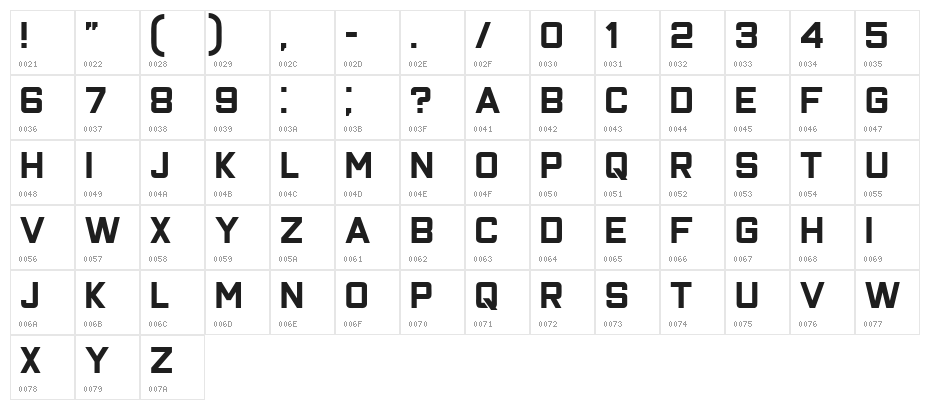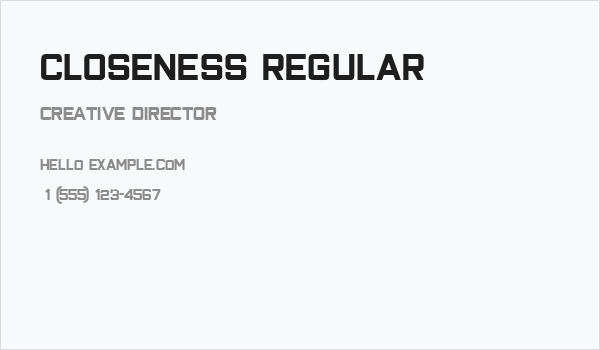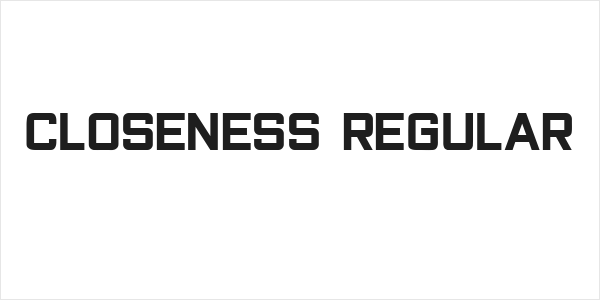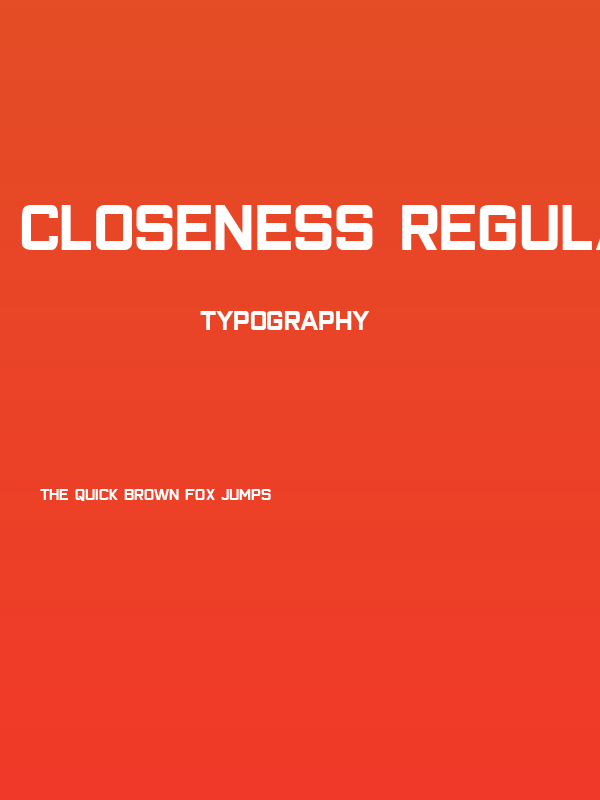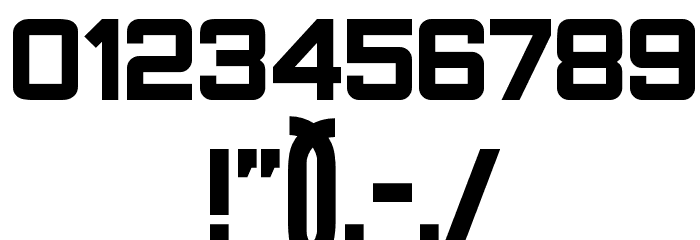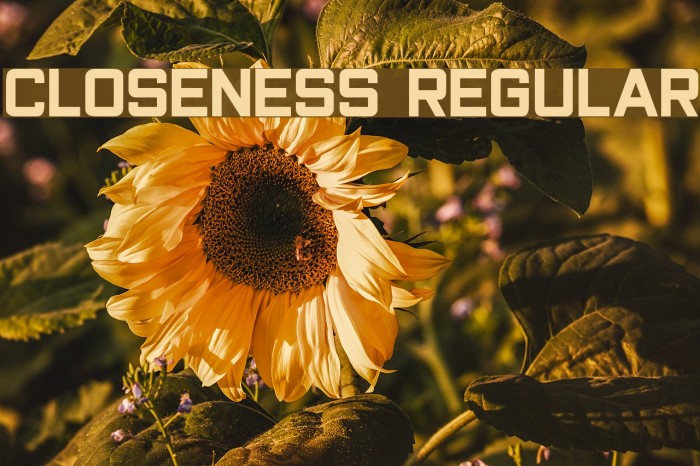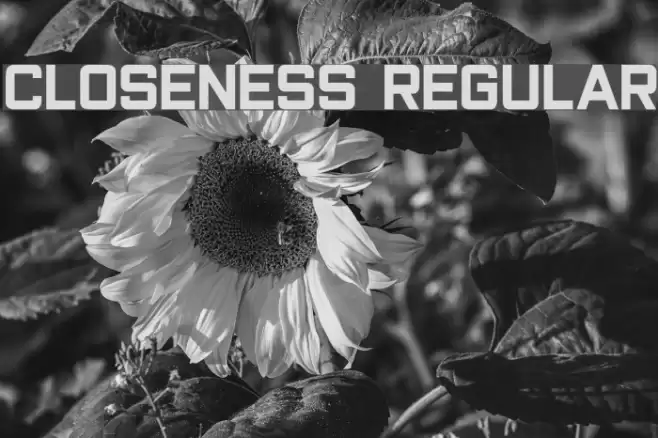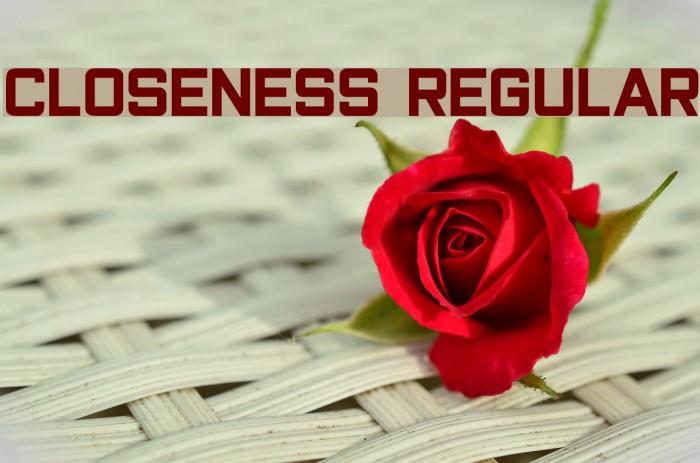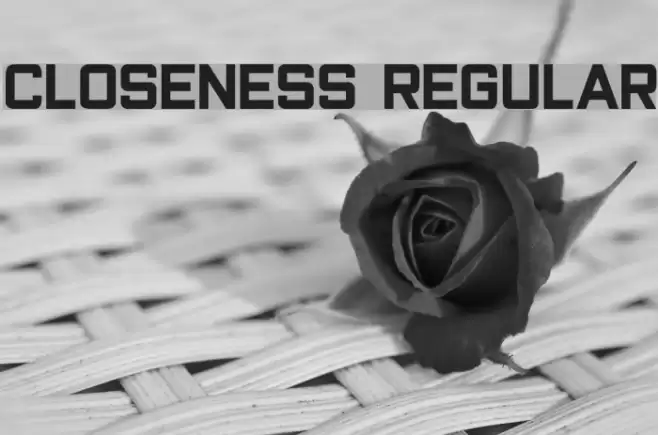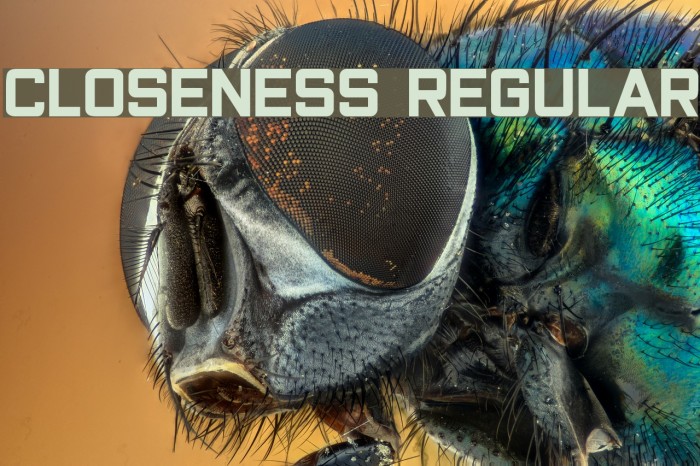
Closeness Regular Font
Closeness Regular Description
This font features a bold, geometric style with strong, angular lines and a modern aesthetic. The characters are uniformly structured, providing a sense of balance and stability. The uppercase letters are particularly striking, with a blocky appearance that commands attention. The lowercase letters maintain this boldness, ensuring consistency across the typeface. The numerals are equally robust, with a clear, legible design that complements the overall style. Special characters are included, adding versatility to the font's use. The font's design is well-suited for projects that require a modern, impactful look.
| Use Case | Headlines, Logos, Branding |
| Proposed Projects | Ideal for branding, advertising, headlines, and digital media projects that require a strong visual presence. |